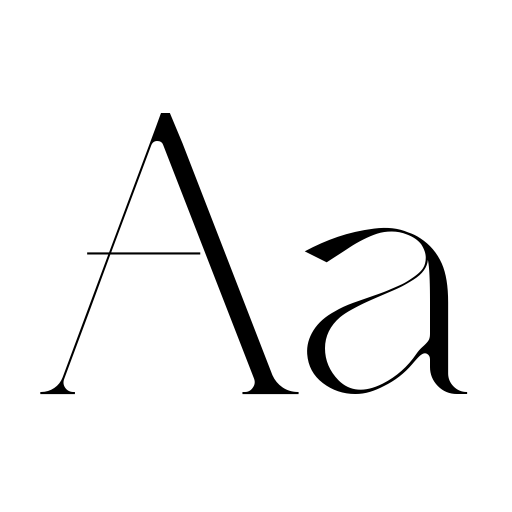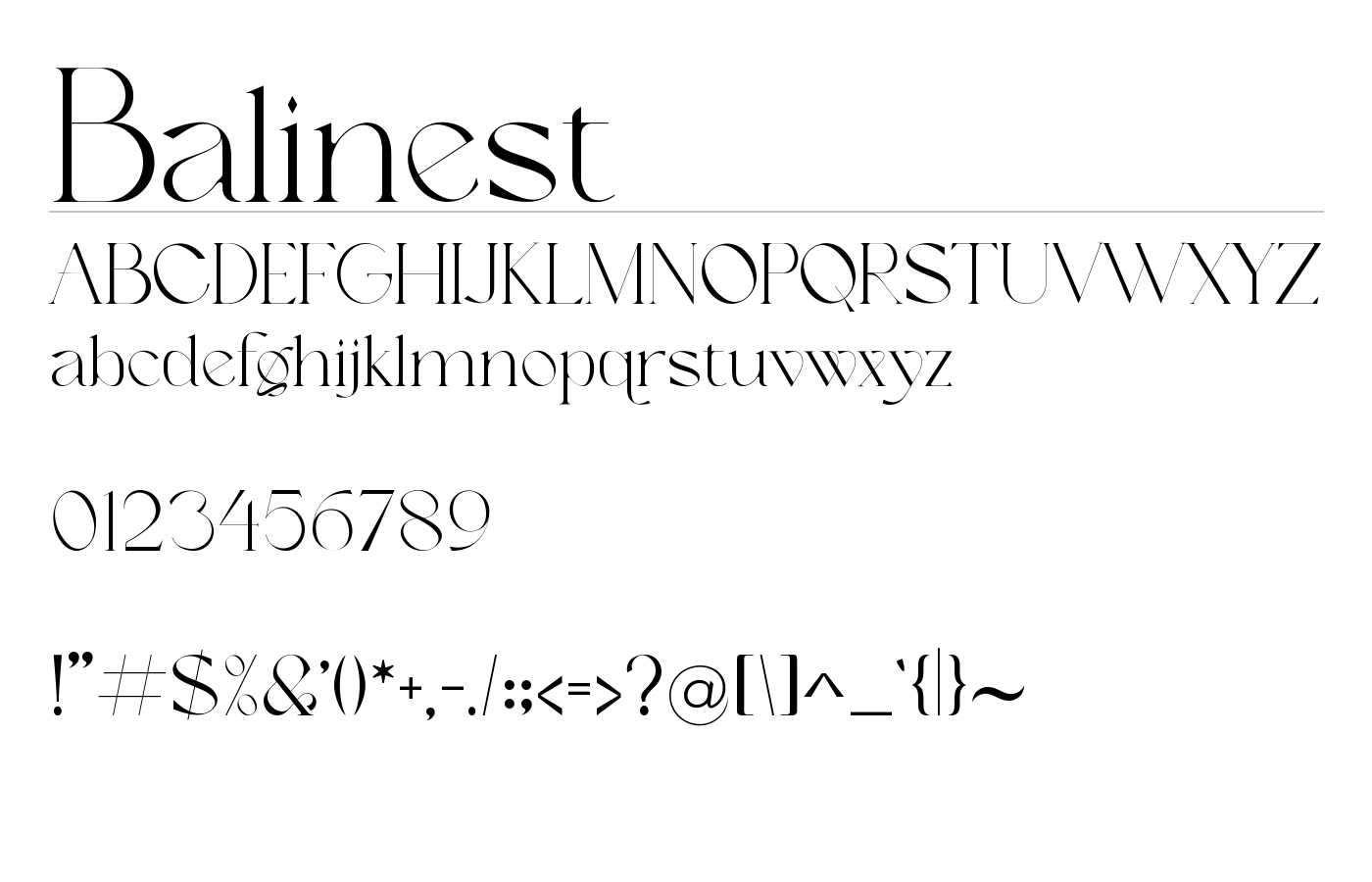
Balinest is an elegant serif font characterized by its high contrast between thick and thin strokes, slender proportions, and refined, sharp serifs. Its delicate, modern design with unique letterform details creates a sophisticated and luxurious feel, making it ideal for upscale branding, fashion, editorial headlines, and stylish packaging. This font stands out best in large sizes where its graceful details can be fully appreciated.
Balinest Font
About Balinest Font